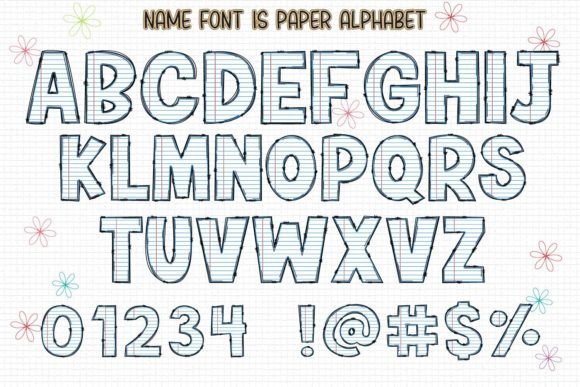
Introduction to Paper Alphabet Font
Remember the excitement of creating handmade cards for your loved ones or crafting unique projects with your kids? The joy of watching a simple design come to life is unmatched. One of the key elements that can elevate a creative project is the font used. That’s where the Paper Alphabet Font shines, adding a touch of playfulness and authenticity to any design.
As a valuable design resource, the Paper Alphabet Font is perfect for designers who want to add a personal touch to their projects. Its high-quality, chunky letters are sure to capture attention and make any design stand out. Whether you’re working on a free download project or creating a commercial design, this font is a must-have. With its transparent background and versatility, you can easily incorporate it into your next creative project.
Key Features of Paper Alphabet Font
- High-quality design resource with a unique, hand-drawn style, perfect for creative projects.
- Includes a range of uppercase and lowercase letters, numbers, and punctuation marks, making it a versatile design resource.
Honest Review: Paper Alphabet Font
I recently stumbled upon the Paper Alphabet Font and was immediately drawn to its unique, high-quality design. This free download is perfect for anyone looking to add a touch of elegance to their creative project.
Here are some aspects that work well: ✨
- High-quality resolution: The font is crisp and clear, making it perfect for printing or digital use.
- Versatility: The font can be used for a wide range of creative projects, from invitations to digital art.
However, there are a few limitations to keep in mind: ⚠️
- Limited character set: The font only includes uppercase letters, numbers, and a few special characters.
- No bold or italic options: If you need to emphasize certain text, you’ll need to use a different font.
Overall, I’m impressed with the Paper Alphabet Font. Its unique design and high-quality resolution make it a valuable resource for designers. While it may have some limitations, it’s still a great option for anyone looking for a free, high-quality font.
Paper Alphabet Font
The Paper Alphabet Font is a high-quality, free design resource that can elevate any creative project. This versatile font features a transparent background, making it perfect for use in various digital design platforms.
The Paper Alphabet Font is perfect for various creative projects, such as:
- Birthday party decorations and invitations
- Children’s book illustrations and design
- Photography overlays and text effects